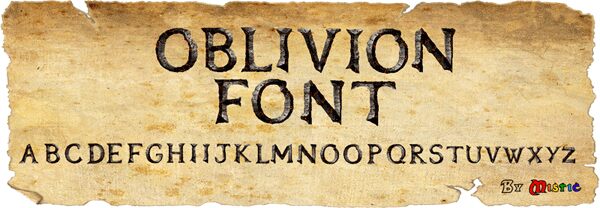
OblivionFont
OblivionFont, credited to Bethesda and Mistic, is a free distressed fantasy display font with jagged, hand-cut letterforms. Uneven edges and shifting stroke widths give the capitals the look of worn carving.
Its chipped contours echo aged stone, metal, and dark fantasy illustration, making it a natural fit for game packaging and promotional art. It also suits event posters and themed merchandise. Against maps, ruins, or heraldic symbols, the lettering can become part of that world rather than a caption.
Font inspired by the logo of the game Oblivion.